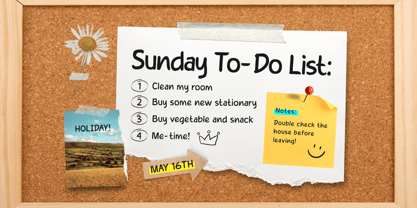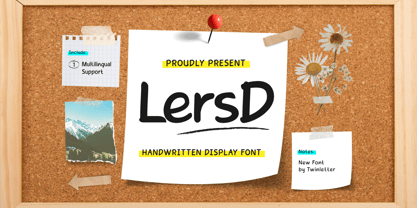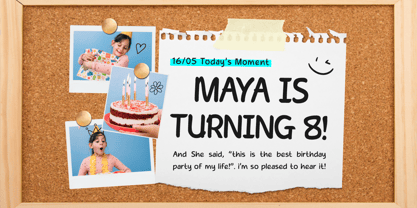
Lers D
von Trabas Kriya
Die Schriftfamilie Lers D wurde von Murozakul Akhsan entworfen und von Trabas Kriya veröffentlicht. Lers D enthält 1 Stile.
LersD is a handwritten font that brings a touch of elegance to your designs. Its delicate, flowing characters mimic the beauty of human handwriting, making it ideal for invitations, greeting cards, and any design where you want to add a touch of sophistication.